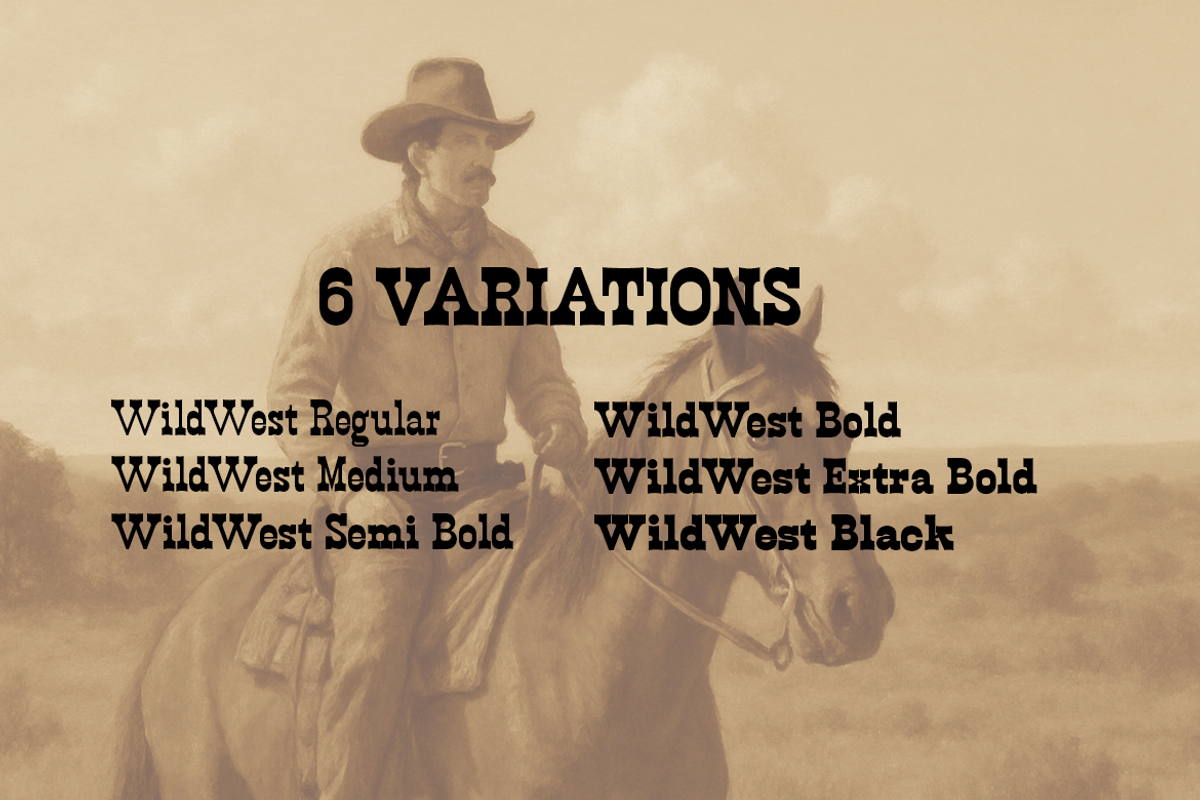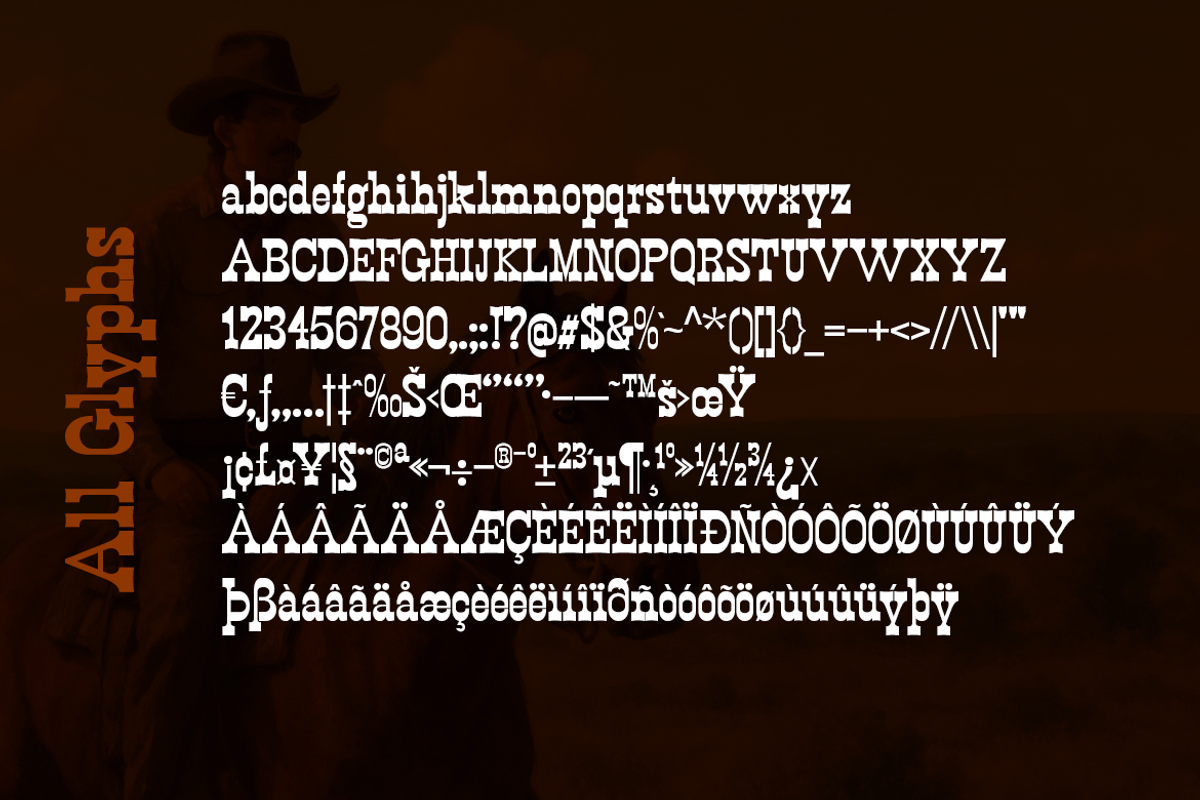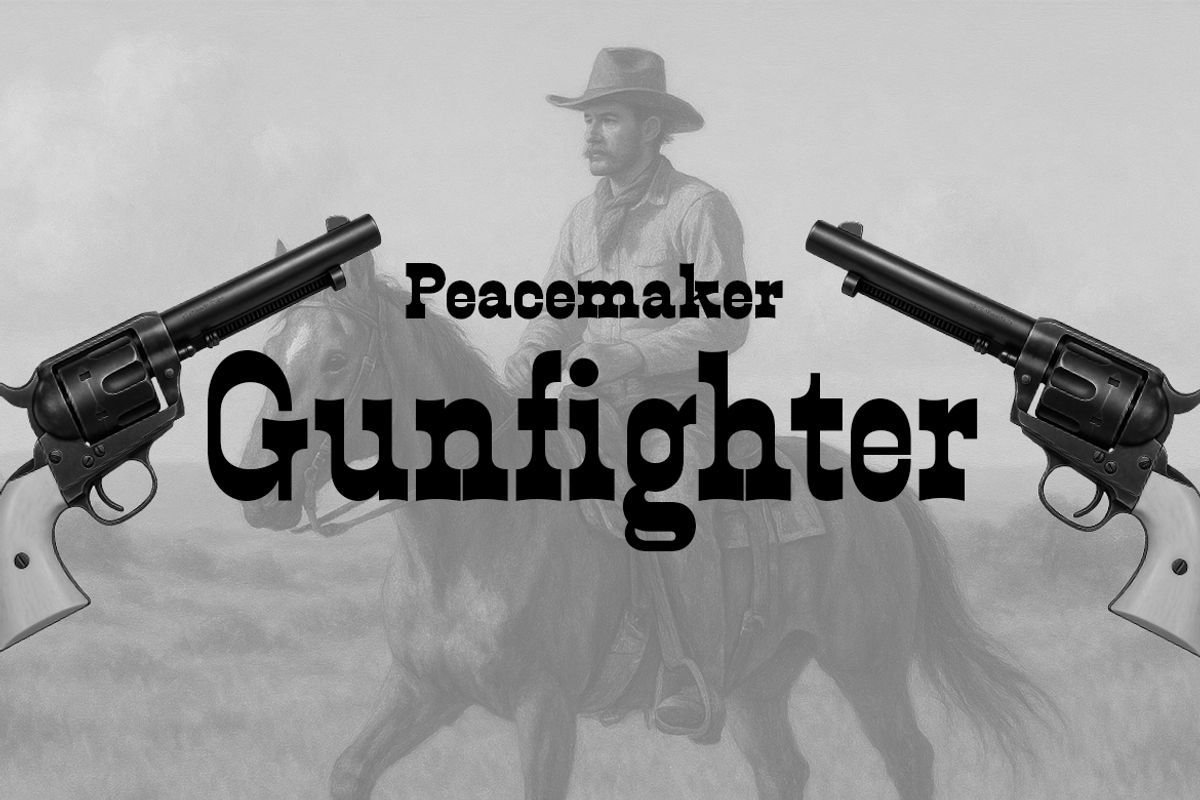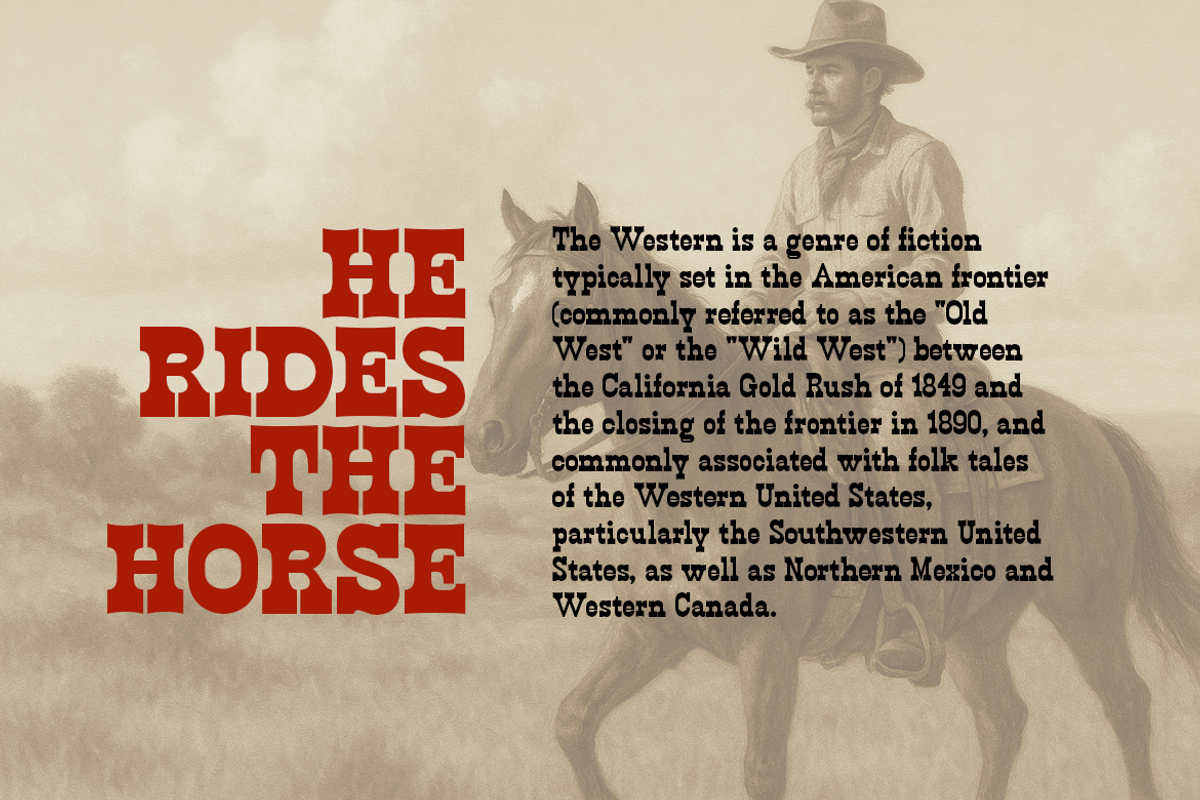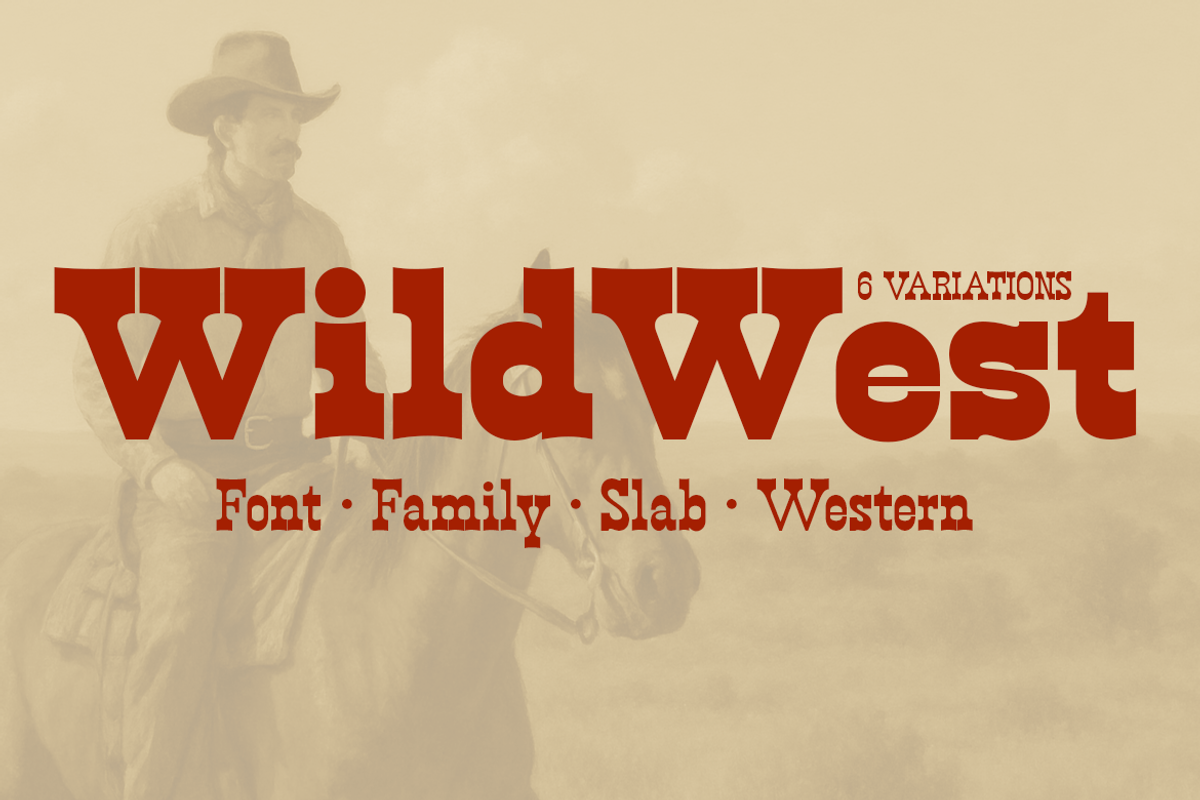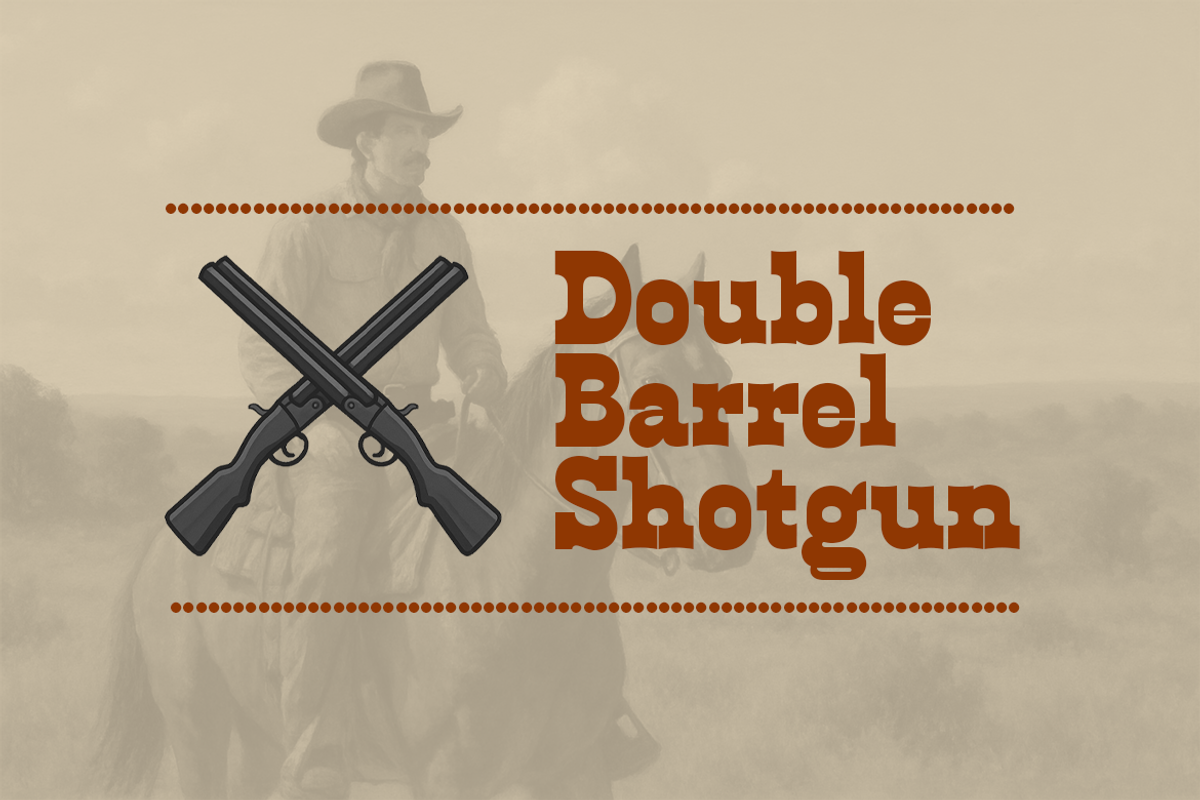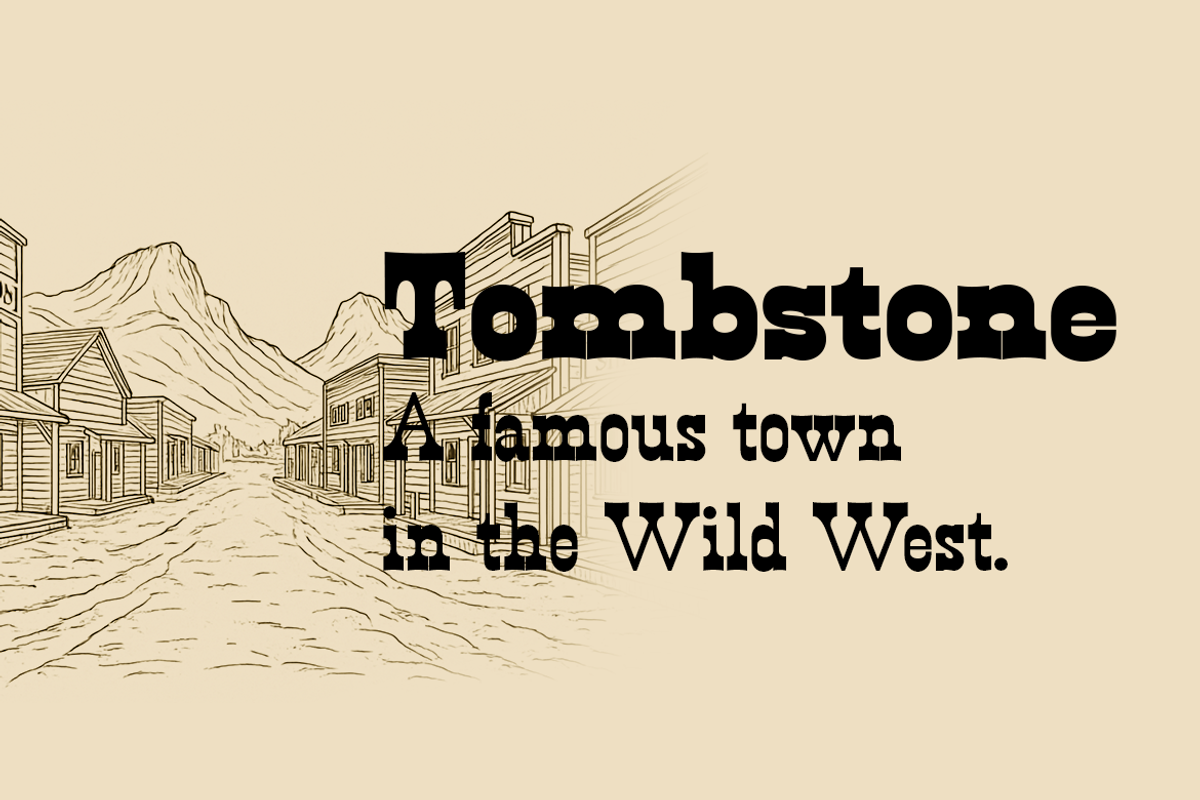
Wild West // Slab Serif Family
Wild West is a slab serif font with a perfect balance familiar to Western styles. With Wild West, designers can use this font for a variety of purposes, creating elegant designs. It's important to note that Wild West is a slab serif font family that differs from other slab serifs in its expressiveness, as Wild West is more assertive.
Wild West is a variation characterized by flexibility that looks cool in the glyph character section. Wild West has a family of six font families.